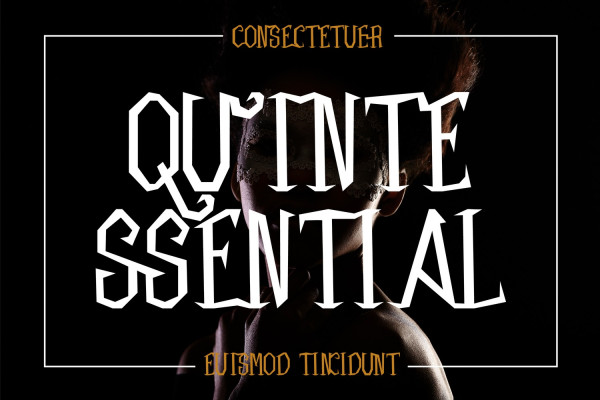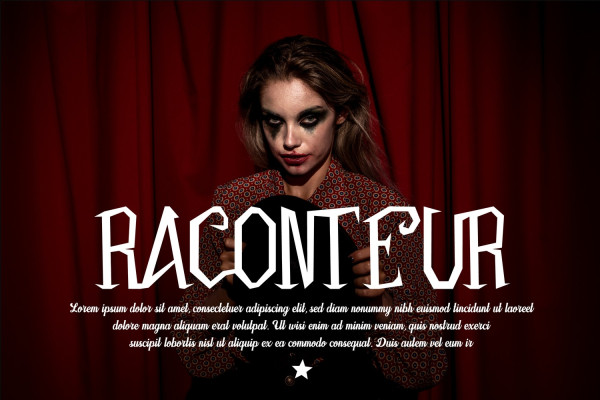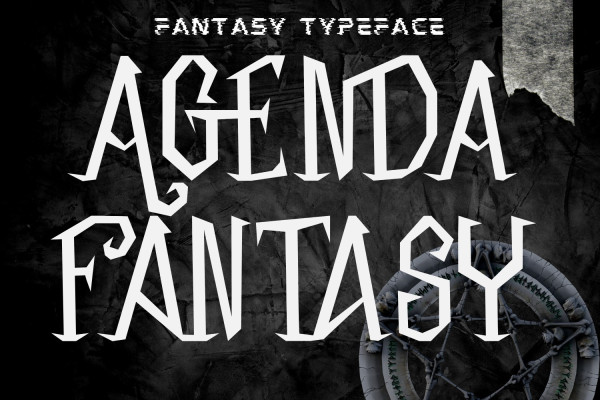
Agenda Fantasy Halloween Font
Agenda Fantasy Font – Halloween Font is a breathtaking fantasy typeface. It’s a creepy and spooky looking display font. It is perfectly suitable for any Halloween-related project or crafty idea! Suitable for any design needs : logo, branding, modern advertising design, halloween, gothic design, apparel, hardcore music, fantasy animation or movie, logos, adventure poster quote, game industry, music / band, book / cover Title, editorial design, website / blog, card, custom mug, pillow, t-shirts, and any gothic hand-lettered needs.
Agenda Fantasy was built with OpenType features and includes 100 ligatures, alternate, numbers, punctuation, and it also supports other languages.
AC AD AL AN AR AS AT AU AV BE CA CE CH CO CT DE DI EA EC ED EE EL EM EN EP ER ES ET FE FO FR GE HA HE HI HO IE IC IL IN IO IR IS IT JU KE LA LE LI LL LO LY MA ME MI NC ND NE NG NO NT NS OC OF OM ON OO OP OR OT OU OW PA PR RA RD RE RI RO RS RT SE SH SI SO SS ST TA TE TH TI TO TR TT UM UN UR VE WI WO